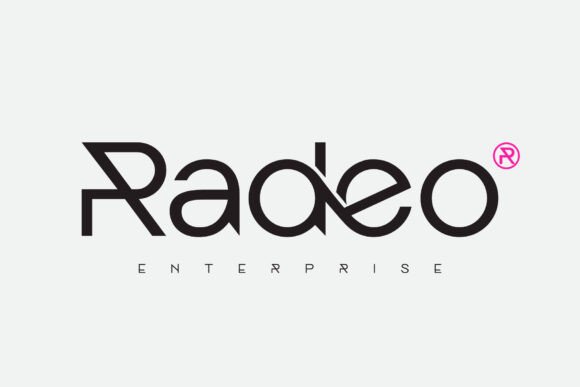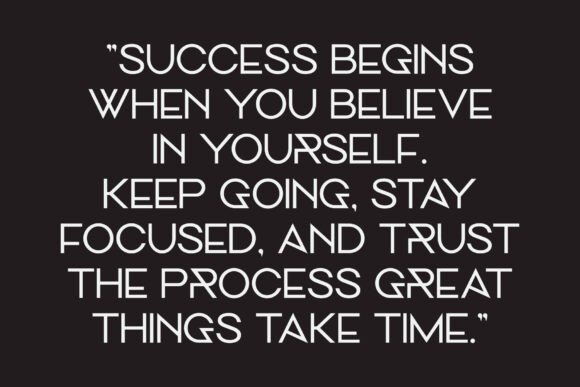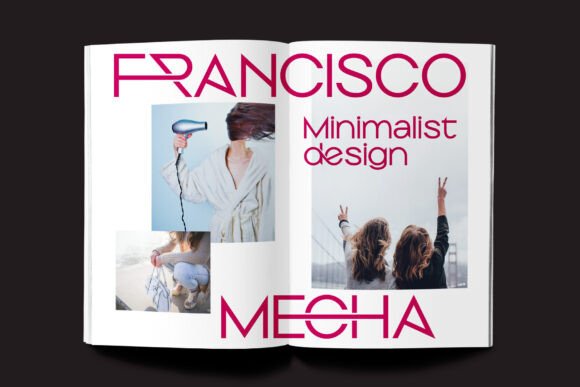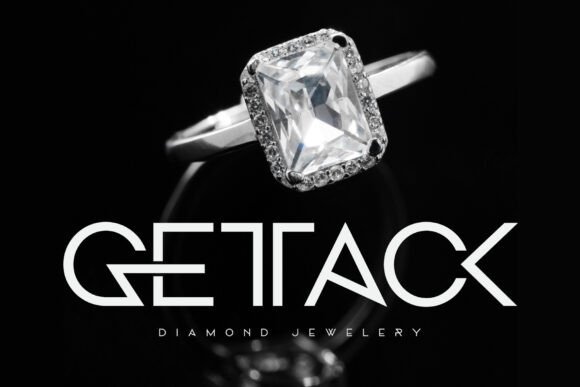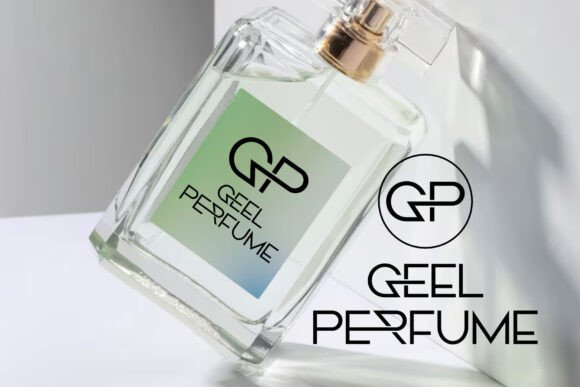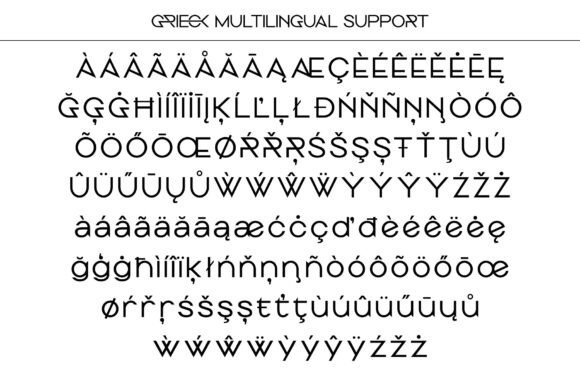
Introducing Grieck: The Modern Font That Elevates Your Brand
I’ll never forget the struggle of working on a logo design project, only to hit a roadblock when it came to finding the perfect font. My client wanted something modern, yet sophisticated; bold, yet elegant. It was a tall order, but then I discovered Grieck – a game-changing font that exceeded my expectations in every way. In this article, I’ll share my experience with Grieck, its features, and how to make the most of it in your designs.
A Personal Encounter with Grieck
I was working on a logo design project for a tech startup, and I needed a font that would convey innovation, boldness, and a touch of sophistication. After hours of searching, I stumbled upon Grieck, and it was love at first sight. The clean lines, dynamic aesthetics, and modern look instantly resonated with my client’s brand identity. With Grieck, I was able to create a logo that not only met but exceeded my client’s expectations.
An Honest Review of Grieck
The Good: What I Love About Grieck
- ✨ Modern and striking design: Grieck’s sleek lines and dynamic aesthetics make it perfect for creating impactful and memorable logos.
- ✅ Elegant and contemporary touch: Grieck adds a touch of sophistication to any design, making it ideal for brands that want to look modern and bold.
- 💡 Versatile: Grieck is suitable for a wide range of design projects, from logos and posters to business cards and more.
The Not-So-Good: Small Quirks and Limitations
While Grieck is an exceptional font, it’s not without its quirks. Here are a few things to keep in mind:
- 🤔 Limited availability of certain characters: Some users have reported that certain characters, such as the Euro symbol, are not available in Grieck.
- ⚠️ May not be suitable for body text: Grieck’s bold and modern design makes it better suited for headlines and titles rather than body text.
The Story Behind Grieck
Grieck was designed by a team of typographers who wanted to create a font that would embody the spirit of modern design. Inspired by the clean lines and geometric shapes of modern architecture, Grieck is a font that’s both bold and elegant. The design team spent countless hours perfecting Grieck’s curves and lines, resulting in a font that’s both versatile and visually stunning.
| Author | Sealoung |
Q: What is Grieck’s personality?
A: Grieck is a modern and striking font with a bold and elegant personality. It’s perfect for brands that want to look sophisticated and innovative.
Q: Is Grieck suitable for body text?
A: While Grieck is an exceptional font, it’s better suited for headlines and titles rather than body text. Its bold design may be overwhelming for longer blocks of text.
Q: Does Grieck support OpenType features?
A: Yes, Grieck supports OpenType features, including stylistic alternates and glyphs. This allows you to add visual interest and creativity to your designs.